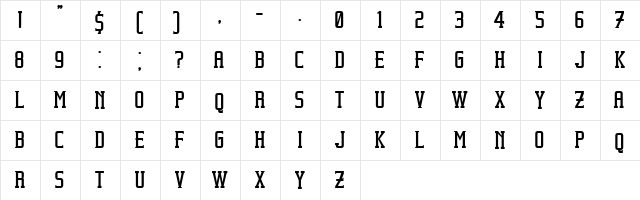
Beholder Bold
Design Context for Beholder Typeface
Beholder offers clean, dependable letterforms without strong stylistic allegiance, making it a practical choice for designers who need flexibility. The heavy weight commands attention and anchors typographic hierarchies.